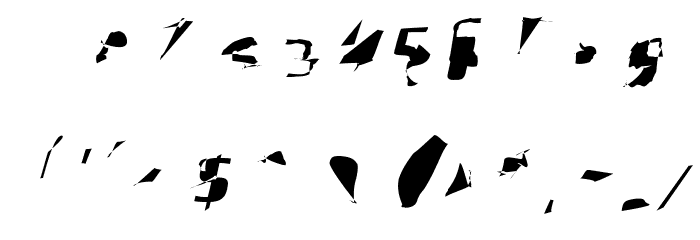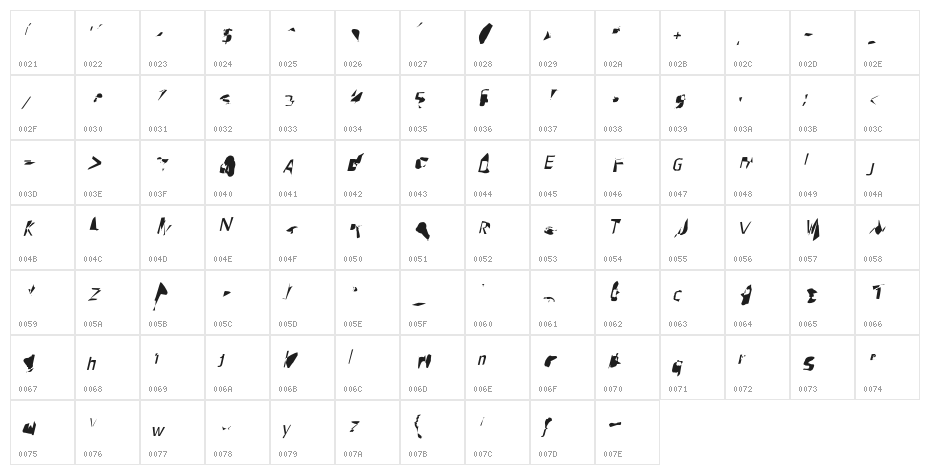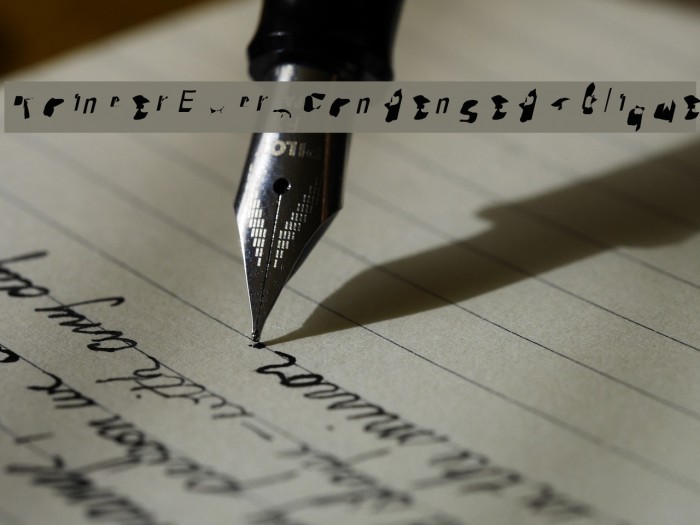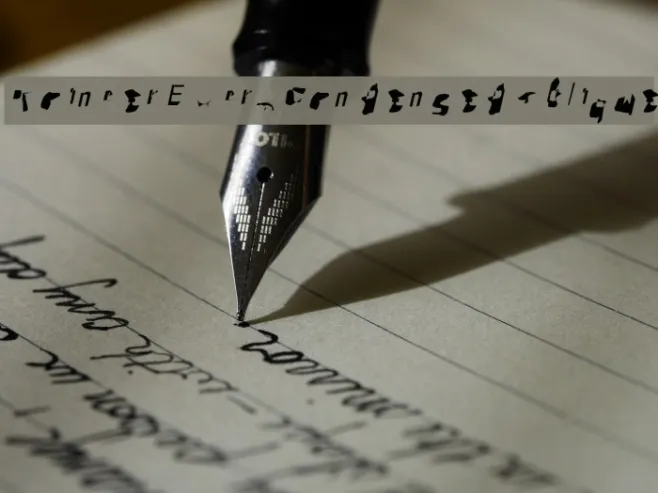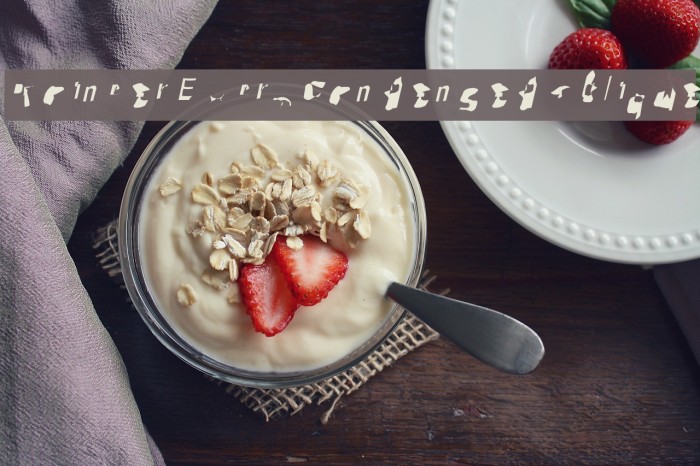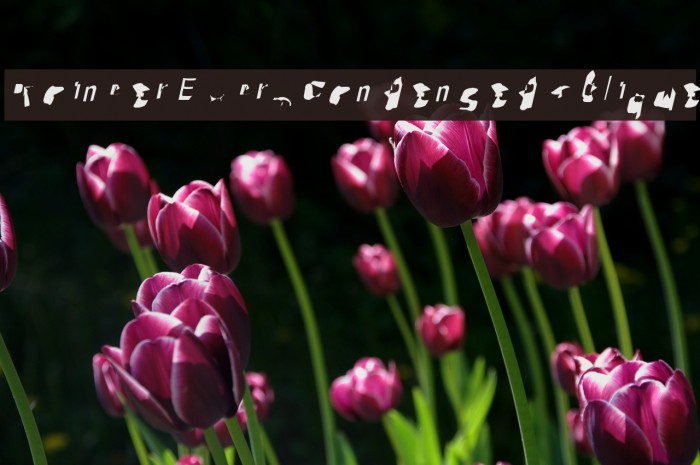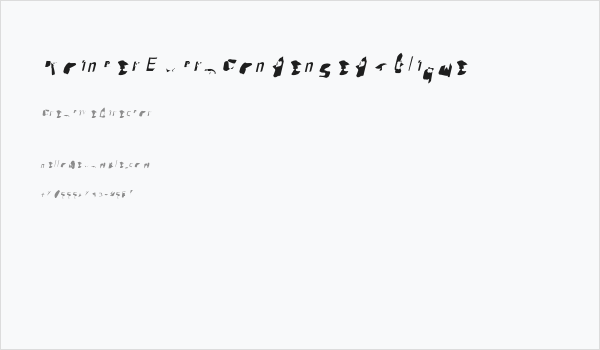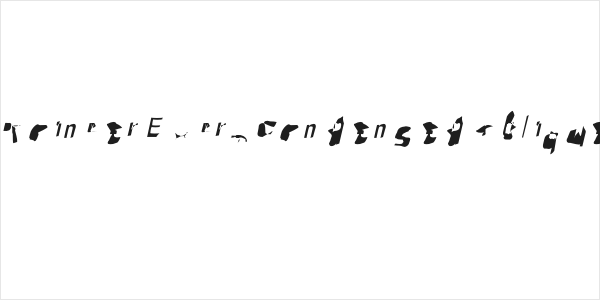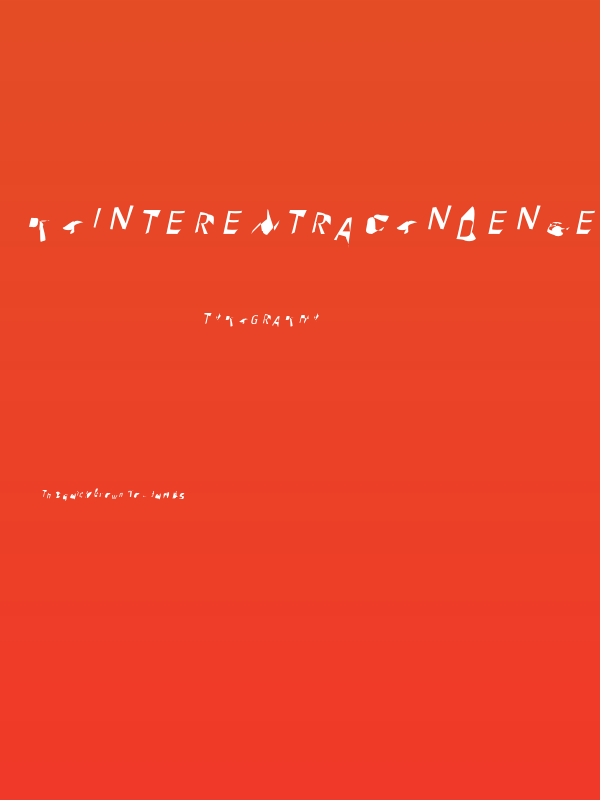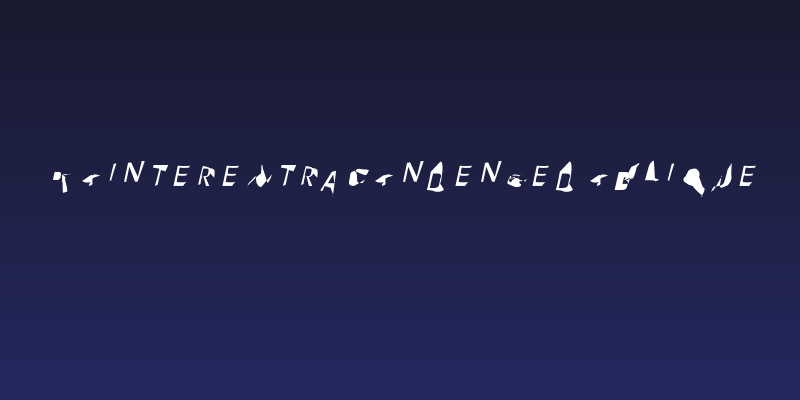
Pointer ExtraCondensed Oblique Font
Pointer ExtraCondensed Oblique Description
This font features a highly stylized and abstract design, characterized by its fragmented and distorted letterforms. The characters appear to be broken or shattered, giving an edgy and dynamic appearance. The overall look is chaotic yet artistic, with sharp angles and irregular shapes that create a sense of movement. The font's oblique nature adds to its unconventional style, making it stand out as a unique choice for creative projects. Despite its fragmented appearance, each character remains recognizable, allowing for readability while maintaining its artistic flair.
| Use Case | Headlines, Logos, Artistic designs |
| Proposed Projects | Ideal for avant-garde posters, album covers, modern art projects, and experimental design work. |